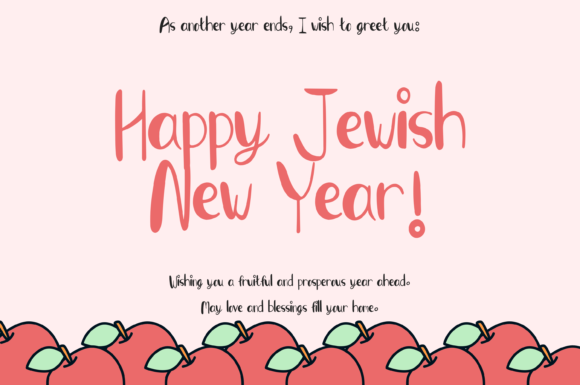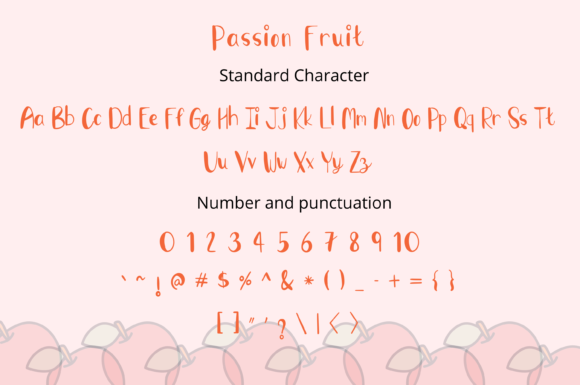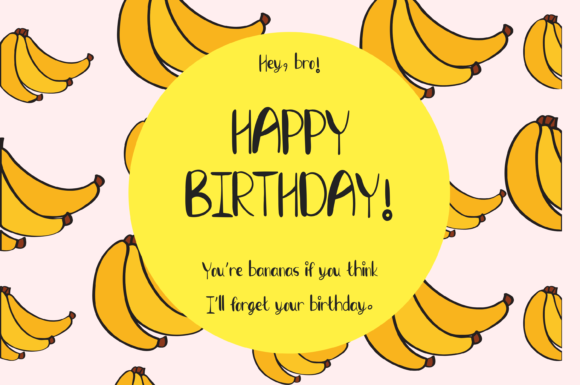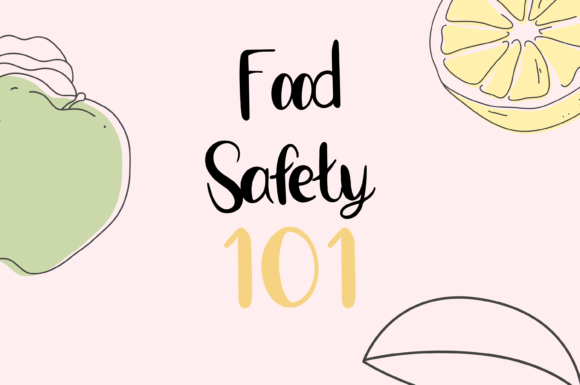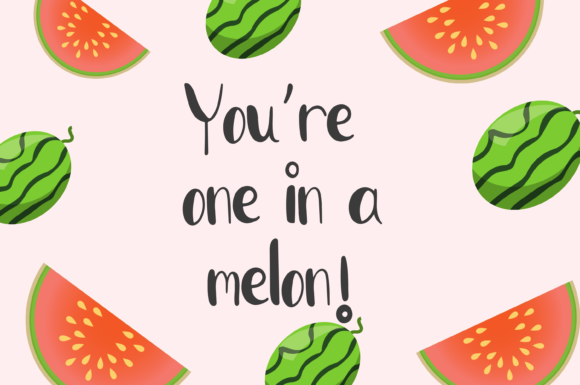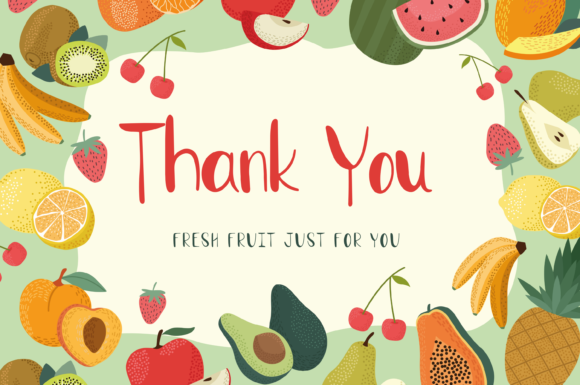
Introduction to Passion Fruit Style Font
Passion Fruit Style is a whimsical and stylish handwritten font.
Key Features of Passion Fruit Style Font
Why Choose Passion Fruit Style Font?
Passion Fruit Style Font offers exceptional quality and versatility, making it a valuable addition to your design toolkit. Whether you’re creating for personal projects or commercial use, Passion Fruit Style Font delivers professional results.